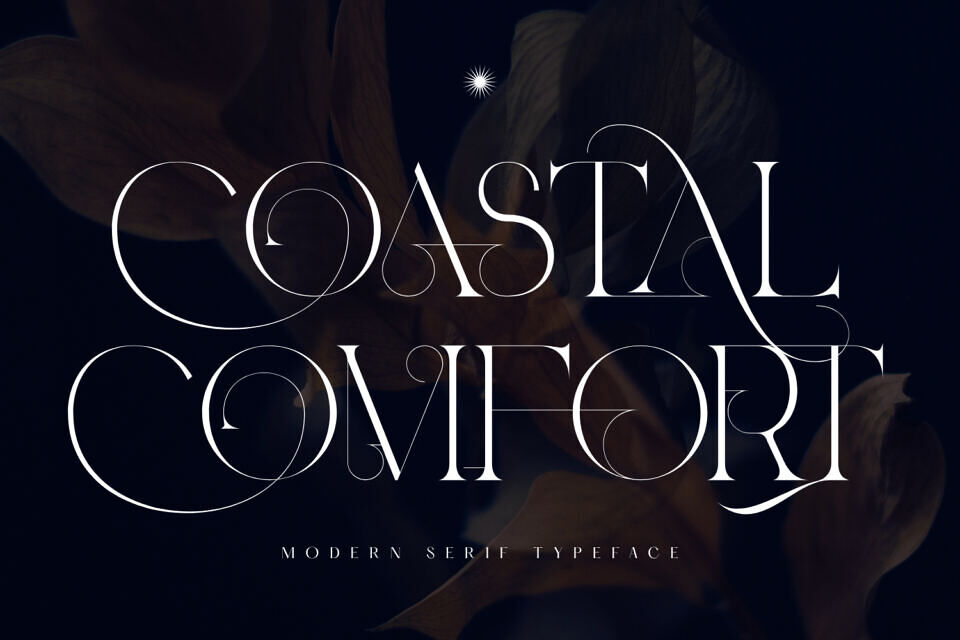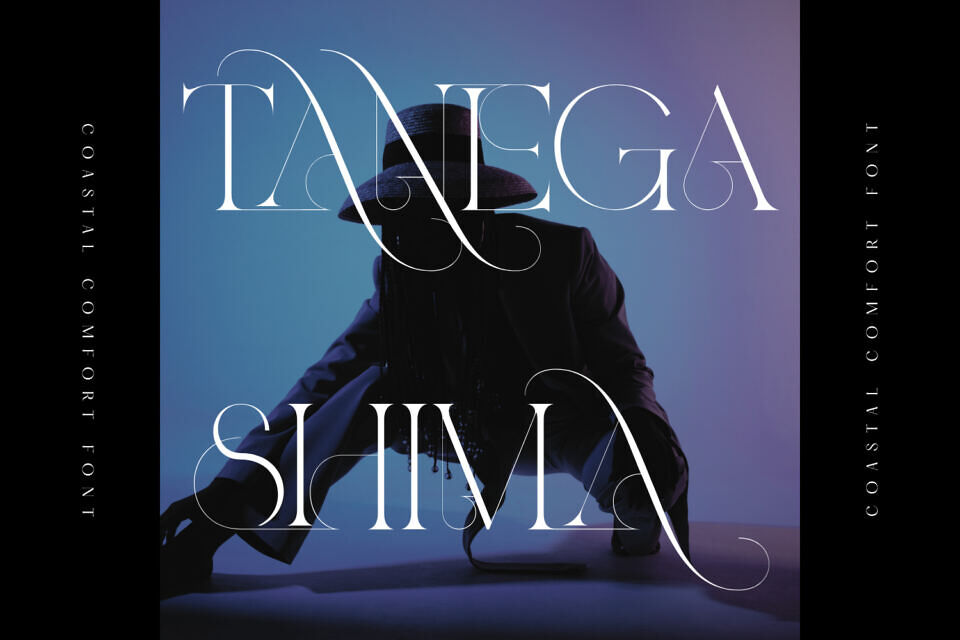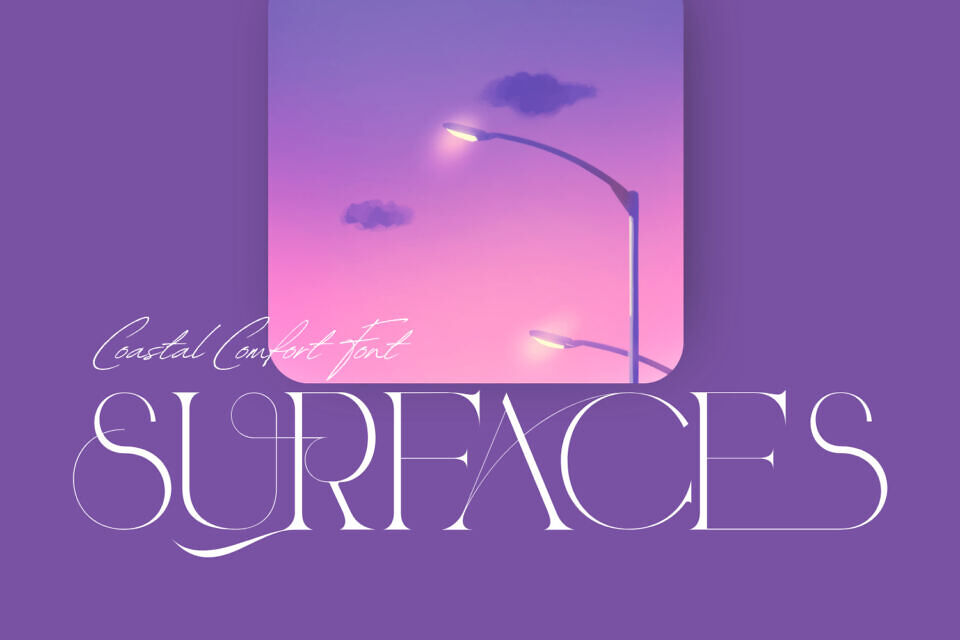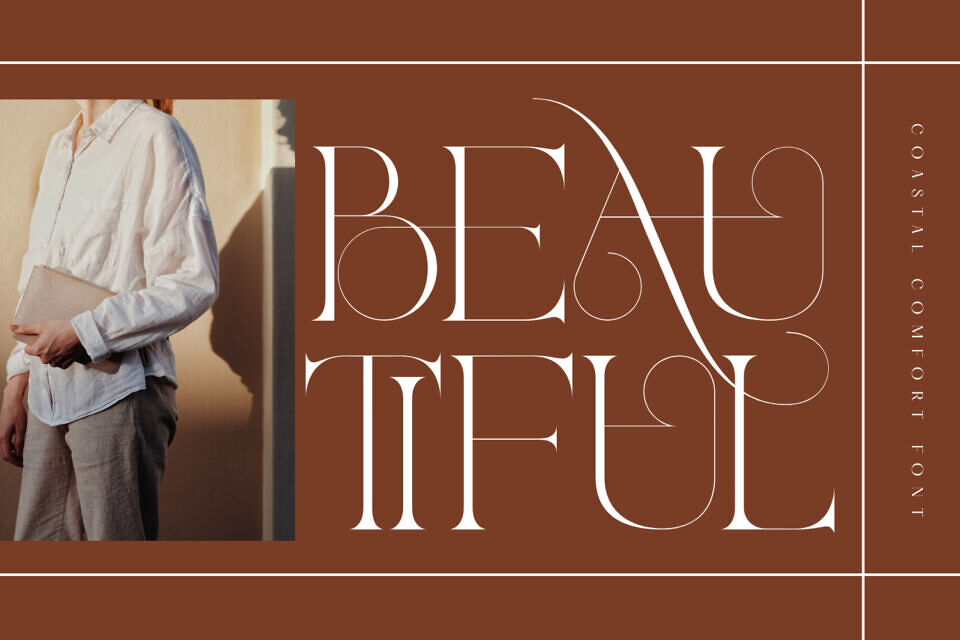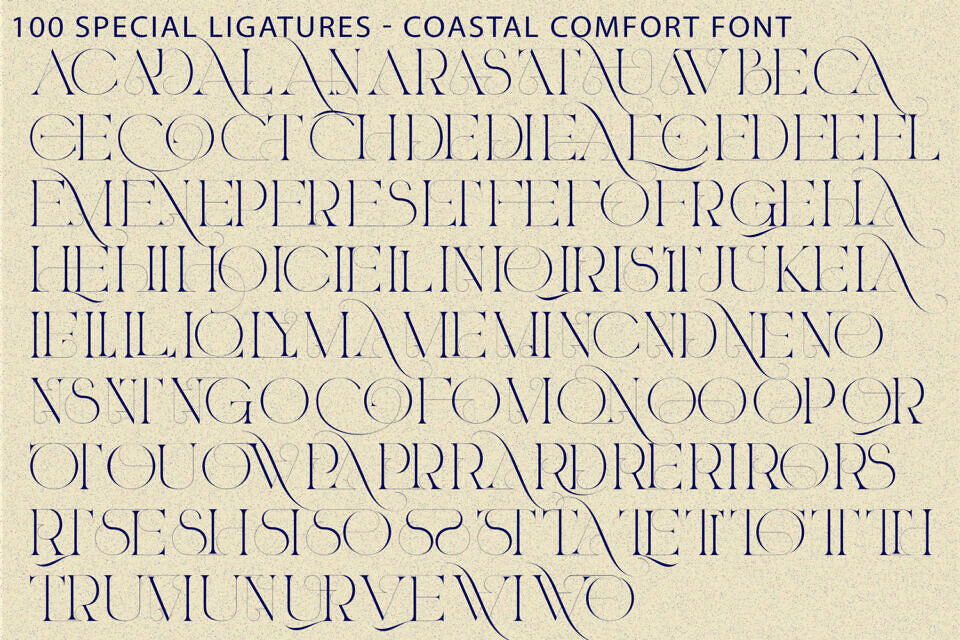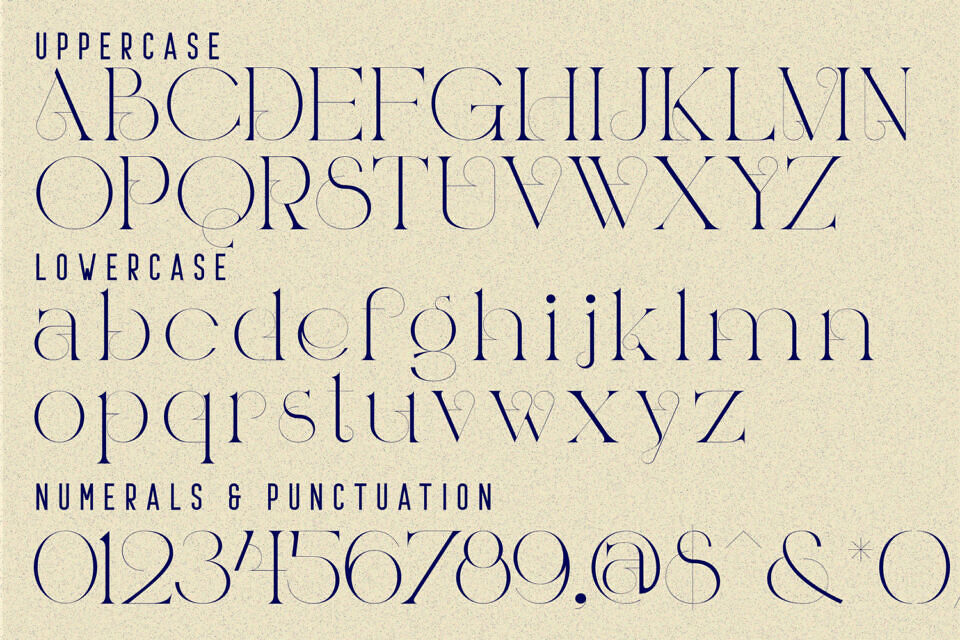
Coastal Comfort Font
Coastal Comfort is a luxury Didone-inspired serif display font designed with elegant proportions, dramatic contrast, and graceful calligraphic details. Its refined letterforms combine classic editorial beauty with long flowing swashes, creating a sophisticated and timeless visual presence.
With delicate hairline details and expressive curves, COASTAL COMFORT is perfect for fashion branding, magazine headlines, wedding invitations, beauty packaging, luxury logos, and premium visual identities.